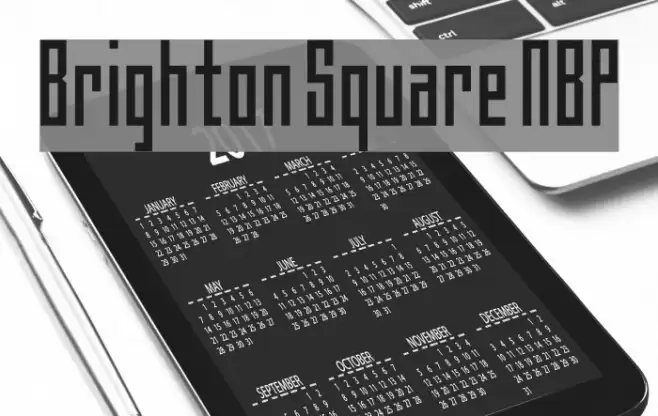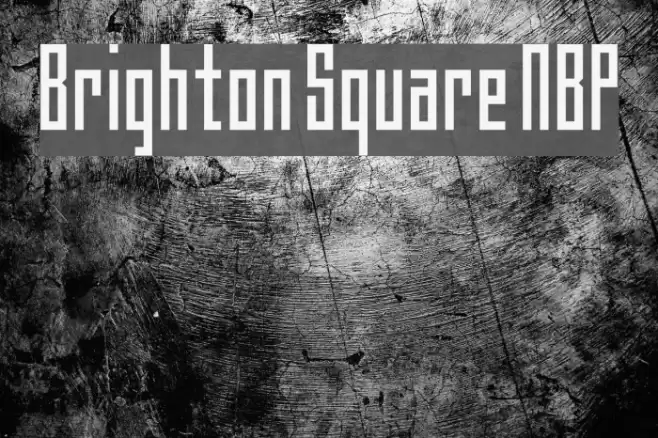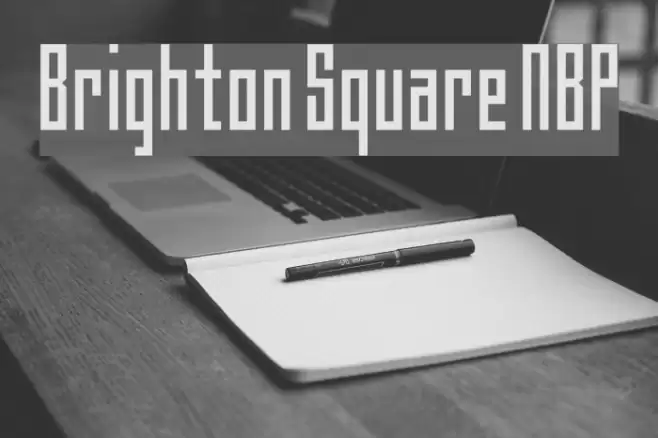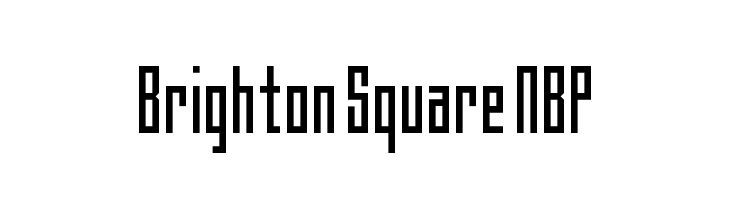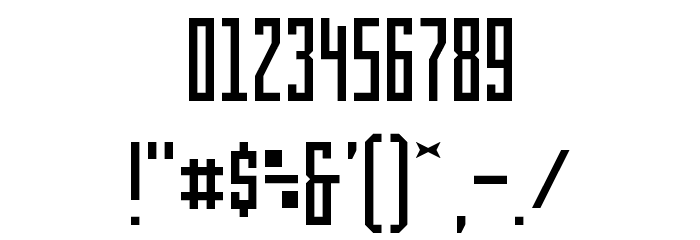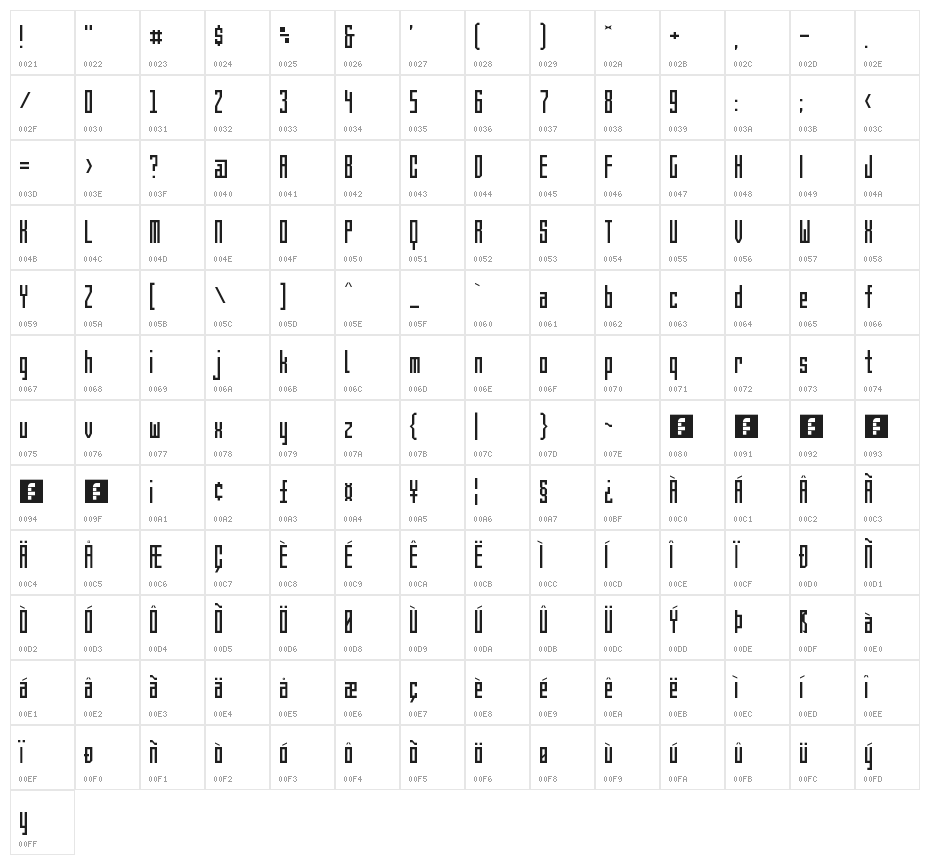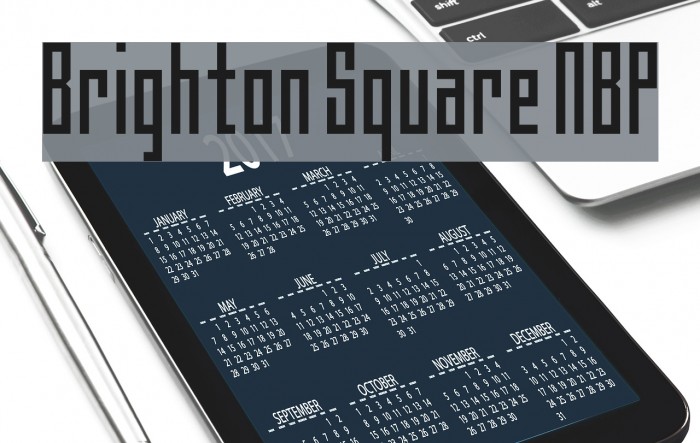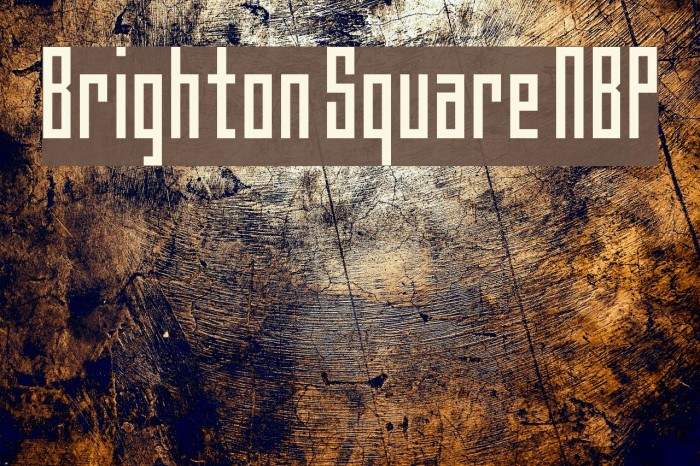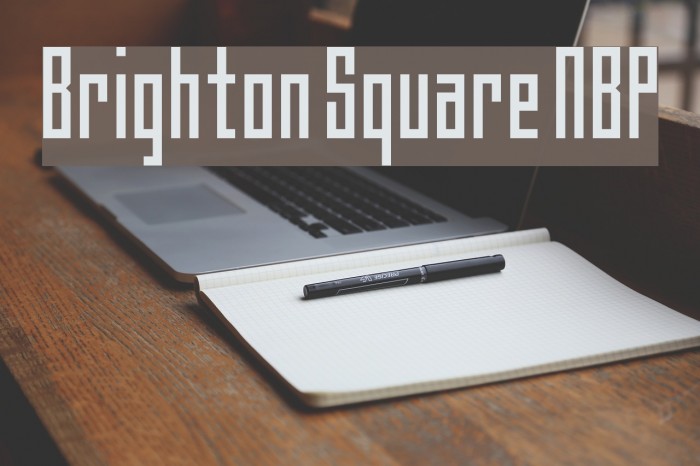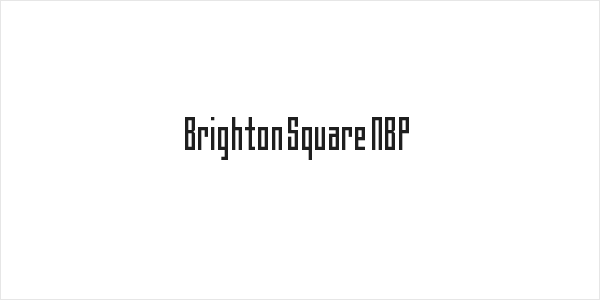
Brighton Square NBP Font
Brighton Square NBP Description
This font features a geometric and structured design, characterized by its square and angular letterforms. The uppercase and lowercase letters maintain a consistent height, contributing to a uniform appearance. The numerals and special characters follow the same angular style, ensuring cohesion across all characters. The font's bold strokes and sharp edges give it a modern and assertive look, making it stand out in any design. Its unique style is suitable for projects that require a strong visual impact.
A geometric and angular font with bold, structured letterforms from Uncategorized fonts.
- Proposed Projects: Ideal for branding, posters, and headlines that require a modern and impactful aesthetic.